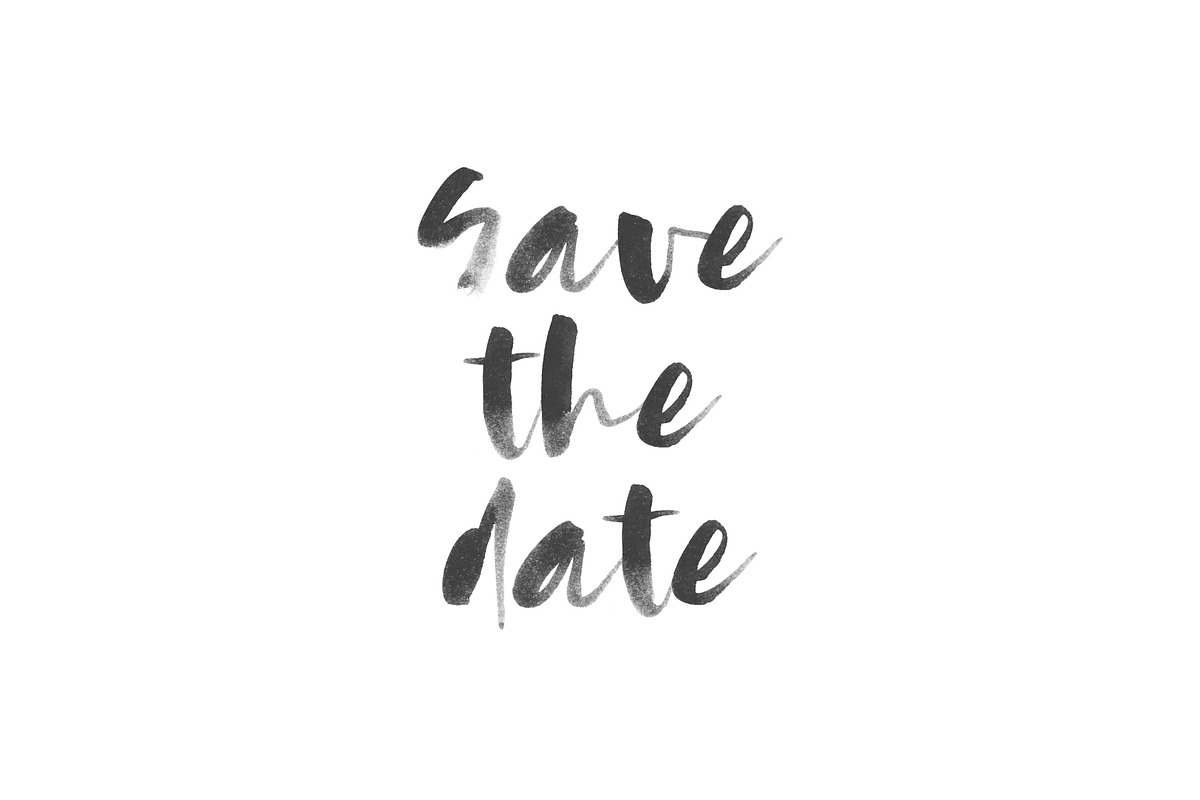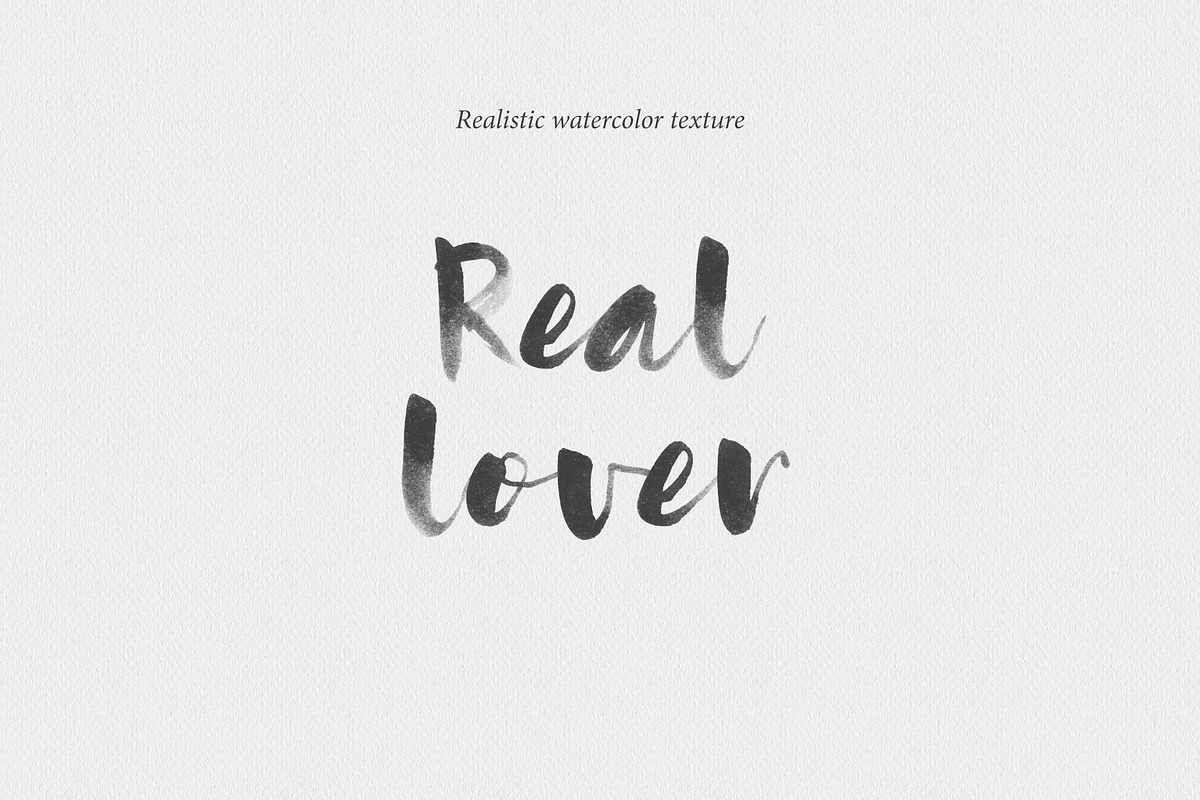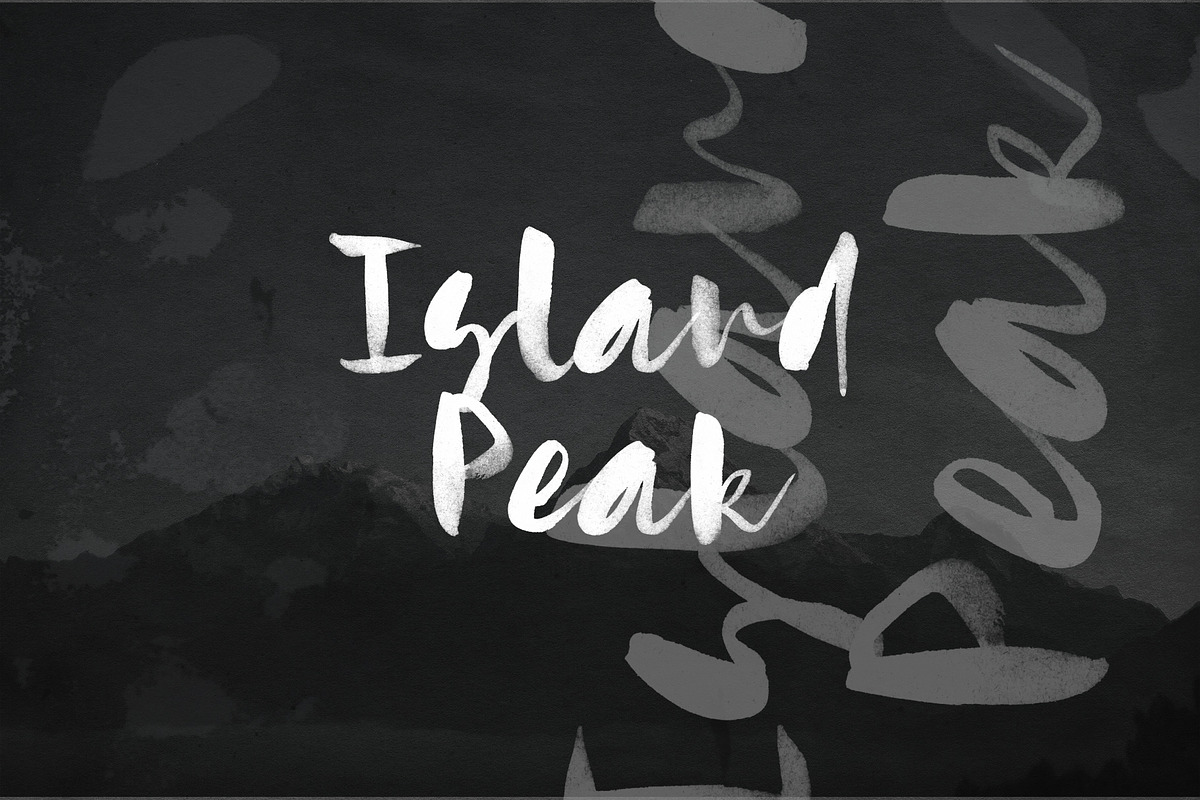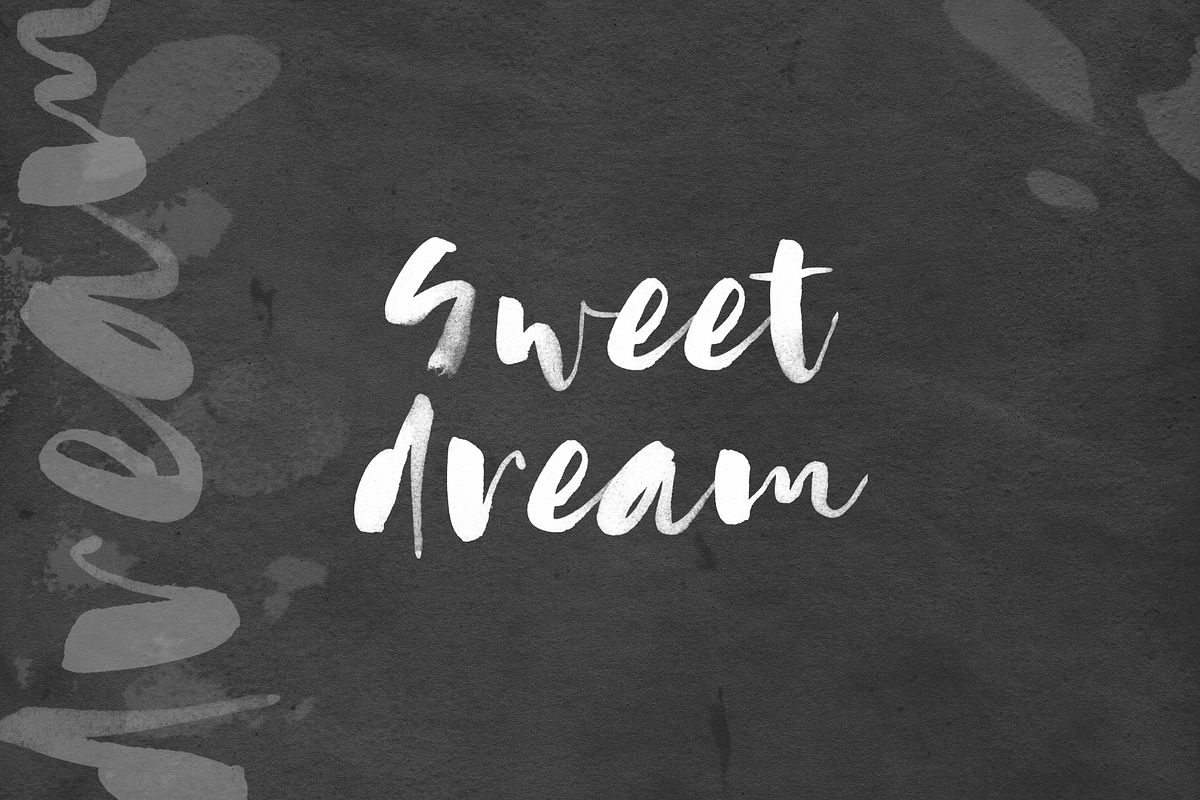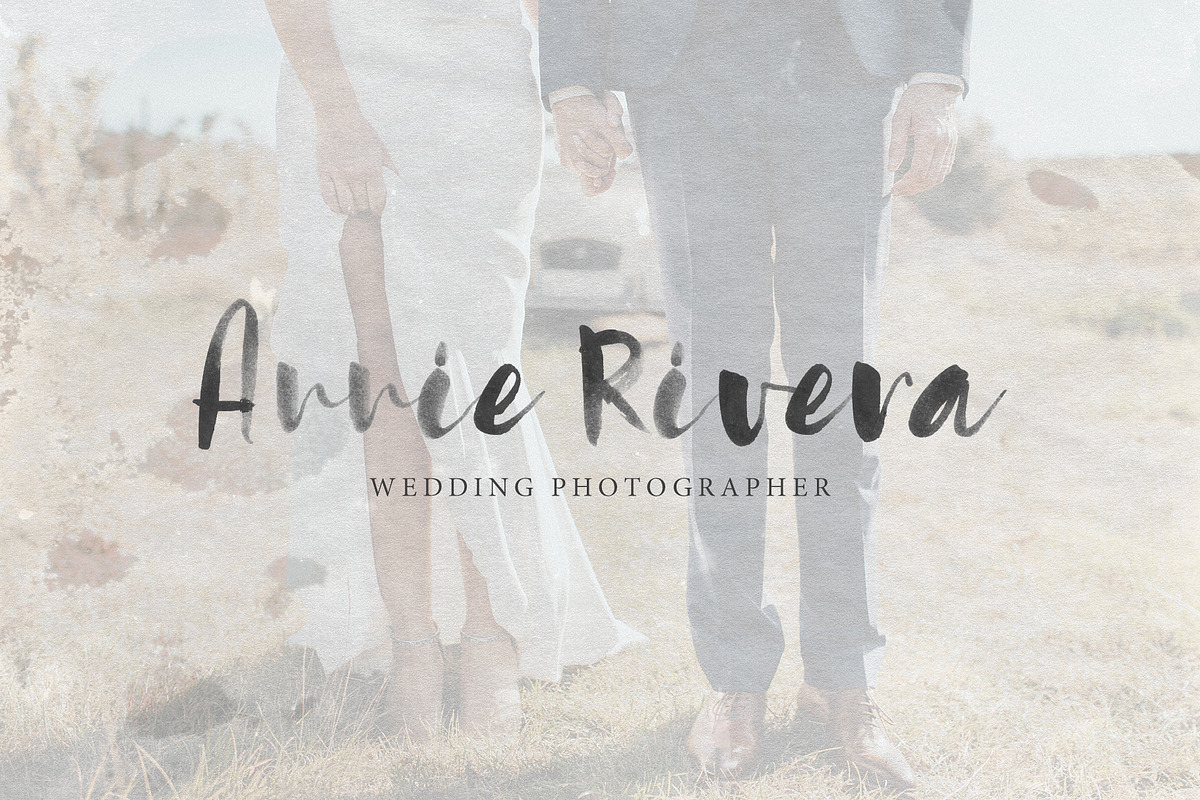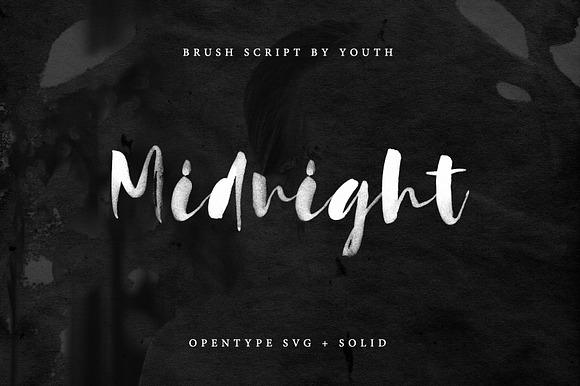
Midnight SVG font
The font was carefully drawn in acrylic and transferred to the digital version to create beautiful typographical designs.
Midnight SVG Font are made by converting hand painted lettering , unchanged, including all its transparency and high resolution detail - into an actual font - as you type your letters out, it looks like you have just hand painted them.
Why Midnight SVG font is worth a look
Midnight SVG font by supfonts fits naturally into Branding, posters, packaging, typography.